dot-font: The Typographic Texture of the News
Newspaper typefaces have it tough. There is almost no other category of type—except possibly the type designed for telephone books—that has to meet such an exacting list of requirements. As I mentioned in my previous column, a newspaper text face has to be compact, legible, and sturdy; it has to look contemporary and up-to-the-minute, yet still seem comfortable and familiar to the paper’s readers; and it has to stand up to high-speed industrial printing on poor paper under varying conditions.
Despite these daunting conditions, there have been a number of successful newspaper typefaces produced in the last hundred years, and there’s been a flurry of new designs just recently, responding to changes in printing technology. Everyone knows about Times New Roman, which was designed as a fresh new typeface for “The Times” of London in the early 1930s. Times is everywhere in the modern world, but oddly enough it’s not used that often in daily newspapers. It’s popular with small-scale weekly or monthly publications, but even “The Times” itself has used different text faces (which it has commissioned) for many decades.
Linotype machines were the typesetting method of choice for newspapers through most of the 20th century, and Mergenthaler Linotype was famously responsible for a number of new typefaces in the ’30s and ’40s, which it called its “legibility faces,” that were developed expressly for the newspaper market. Some of those faces are still used, in digital form, but the change to offset printing and first photo then digital typesetting required new forms of type that were adapted to the new technology. A number of type foundries and individual type designers have tackled this problem; the most systematic program that I’m aware of, or at least the most extensive, is the one that Font Bureau calls (echoing the Linotype hot-metal typefaces) its “Readability Series.”
Finely Graded Fonts
Since newspapers first became widespread in the 19th century, which was dominated by what got dubbed “modern” typefaces (vertical stress, high contrast, rounded terminals, and a general feeling of roundness), many of today’s news faces hark back to that familiar look. One of the best is Matthew Carter’s Miller, which is based on the spirit of the Scotch Roman look that was popular in the 19th-century United States; Carter didn’t derive Miller from a particular historical typeface, but he captured the feel of those sparkly yet workmanlike letters in digital form. Miller is used today in magazines (it’s the text face of Newsweek), and Carter did an adaptation of it for use in the British daily “The Guardian.”
Matthew Carter’s typeface Miller, as used in “The Guardian” for text.
That adaptation, under the name Miller Daily, is marketed by Font Bureau in four different “grades,” each very slightly darker than the last, to compensate for variations in printing conditions; different grades of the typeface can be used on different kinds of paper or on different presses, so that the printed result comes out looking the same. (Each grade has the full complement of weights—in this case bold and regular, with their italics; the whole range of weights simply looks denser or lighter depending on which grade you choose.)
Font Bureau took this even farther with Bureau Roman, a slightly condensed oldstyle news face based on Morris Fuller Benton’s Century Oldstyle, but without the prickliness that today’s versions of Century Oldstyle suffer from. Bureau Roman comes in five closely spaced grades, giving even more flexibility than Miller. David Berlow, along with Cyrus Highsmith, developed Bureau Roman originally for the “Washington Post.”
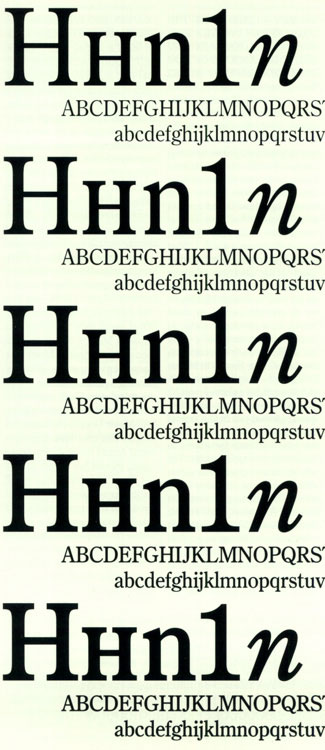
The five different “grades” of Bureau Roman, designed by David Berlow along with Cyrus Highsmith.
Perhaps the most ambitious newspaper type family that Font Bureau has done is the Poynter series, which was created under the sponsorship of the Poynter Institute (an institution devoted to studying and improving the newspaper and the news). Tobias Frere-Jones designed Poynter Oldstyle Text as an all-purpose newspaper face; for inspiration he reached back far beyond the origins of newspapers to the 16th-century Dutch punchcutter Hendrik van den Keere, whom Font Bureau describes as the “wellspring of our oldstyle tradition.” (Poynter Oldstyle is also a “graded” typeface; it comes in four grades.) As a sans-serif companion to this, Frere-Jones drew on Morris Fuller Benton’s drawings for ATF Franklin Gothic and created Poynter Gothic Text, which is designed to work well in subheads and ancillary material alongside Poynter Oldstyle. Poynter Gothic is not graded, but interestingly enough the third part of the Poynter family is: Poynter Agate, a robust sans serif developed by David Berlow for use at very small point sizes, in stock listings or classified ads.
A type sample of Poynter Oldstyle Text, designed by Tobias Frere-Jones for Font Bureau.
Gulliver & Swift
In Europe, quite a few newspapers have used typefaces designed by Gerard Unger for their text (and for their headlines). Though it wasn’t specifically designed as a newspaper face, Swift is used by several papers, including the one that lands on Unger’s own breakfast table in the Netherlands. Perhaps inspired by this, Unger devoted a good deal of energy to the problem of making a successful, versatile newspaper typeface, and he developed the specialized type family he calls Gulliver. It’s compact, large on the body, and surprisingly elegant for a news face. Unger markets Gulliver to large newspapers as a complete system.
Gerard Unger’s Gulliver
As I couldn’t resist pointing out in “Contemporary Newspaper Design,” Gulliver serves as an almost textbook proof that how a typeface is used counts for more than what the typeface looks like. In the sober, elegant “Stuttgarter Zeitung,” where it is given room to breathe, Gulliver exudes an air of calm and order; in the flashy “USA Today,” where it is squashed and stretched and pumped up and jammed together, Gulliver appears frenetic and overwrought. Both papers use the same typeface; the difference is all in the treatment.